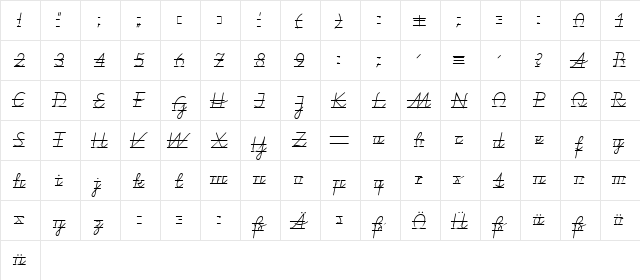
SchulschriftA Regular
Design Context for SchulschriftA Typeface
SchulschriftA is a composed and adaptable typeface that performs quietly and consistently across a wide range of design contexts.